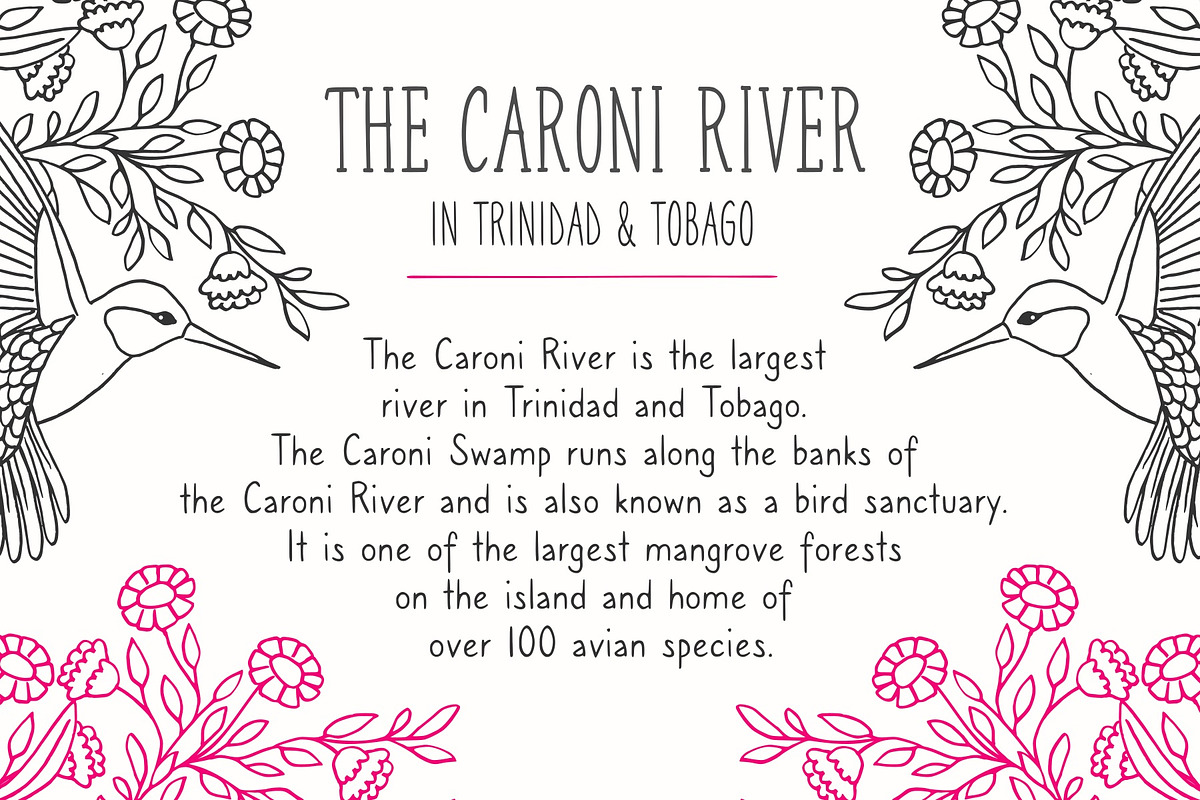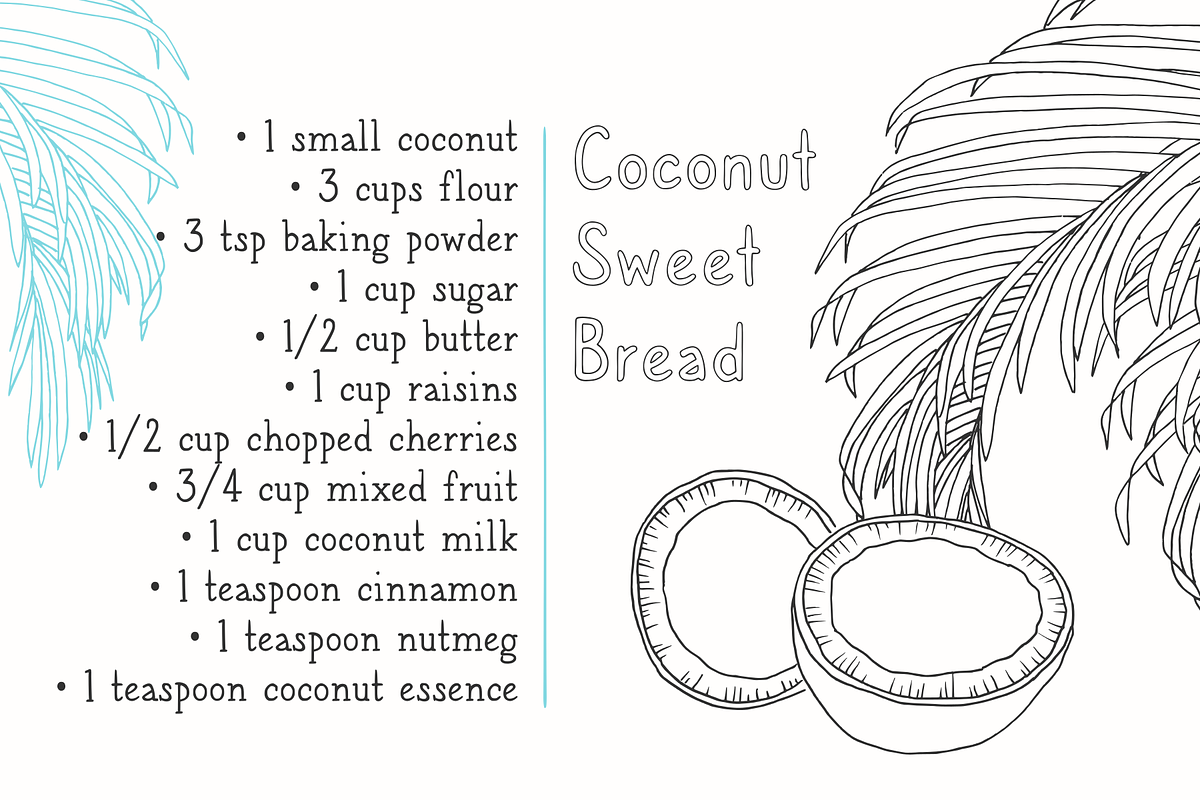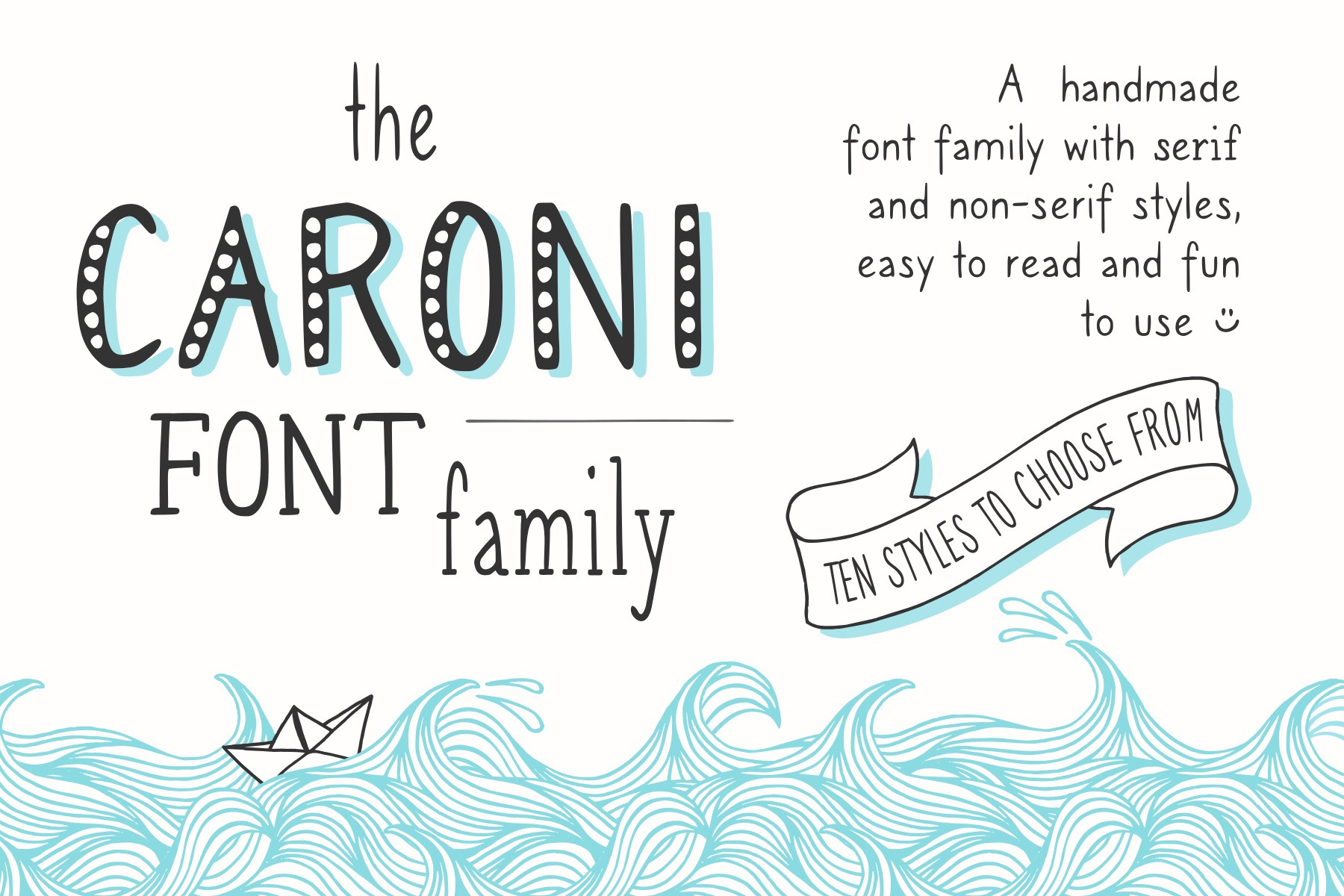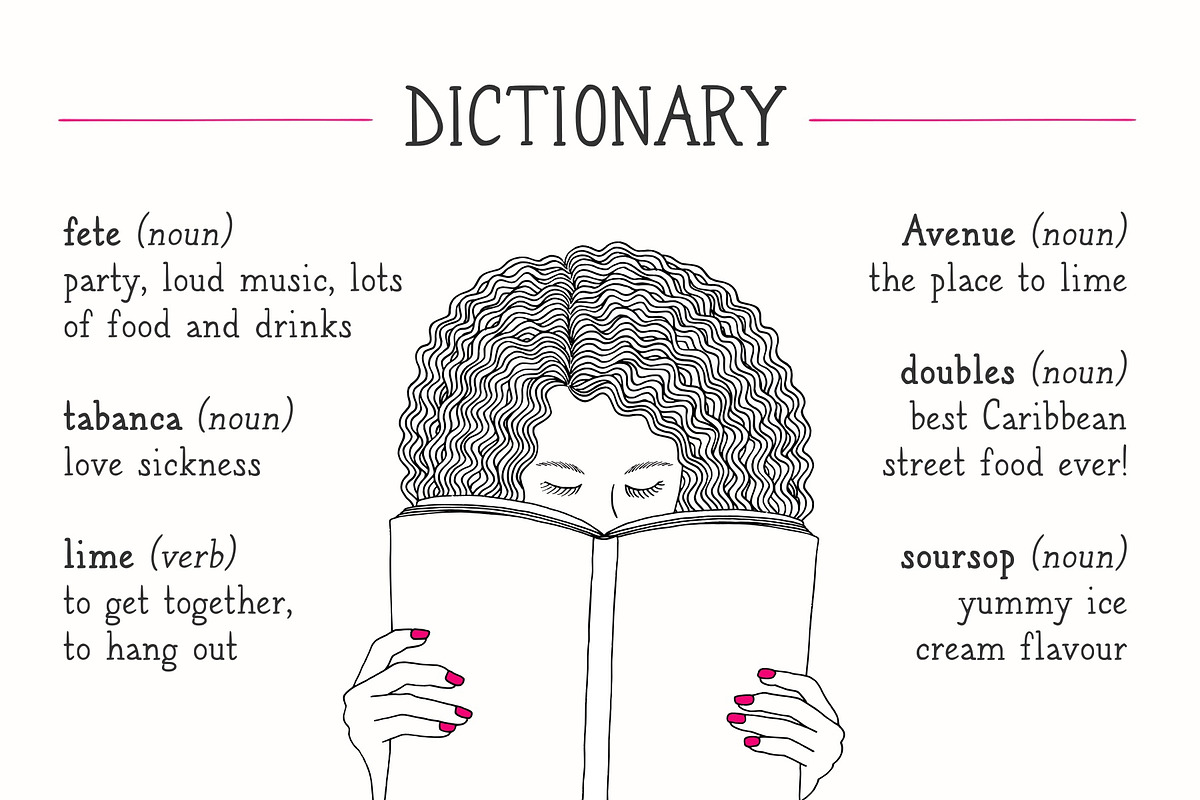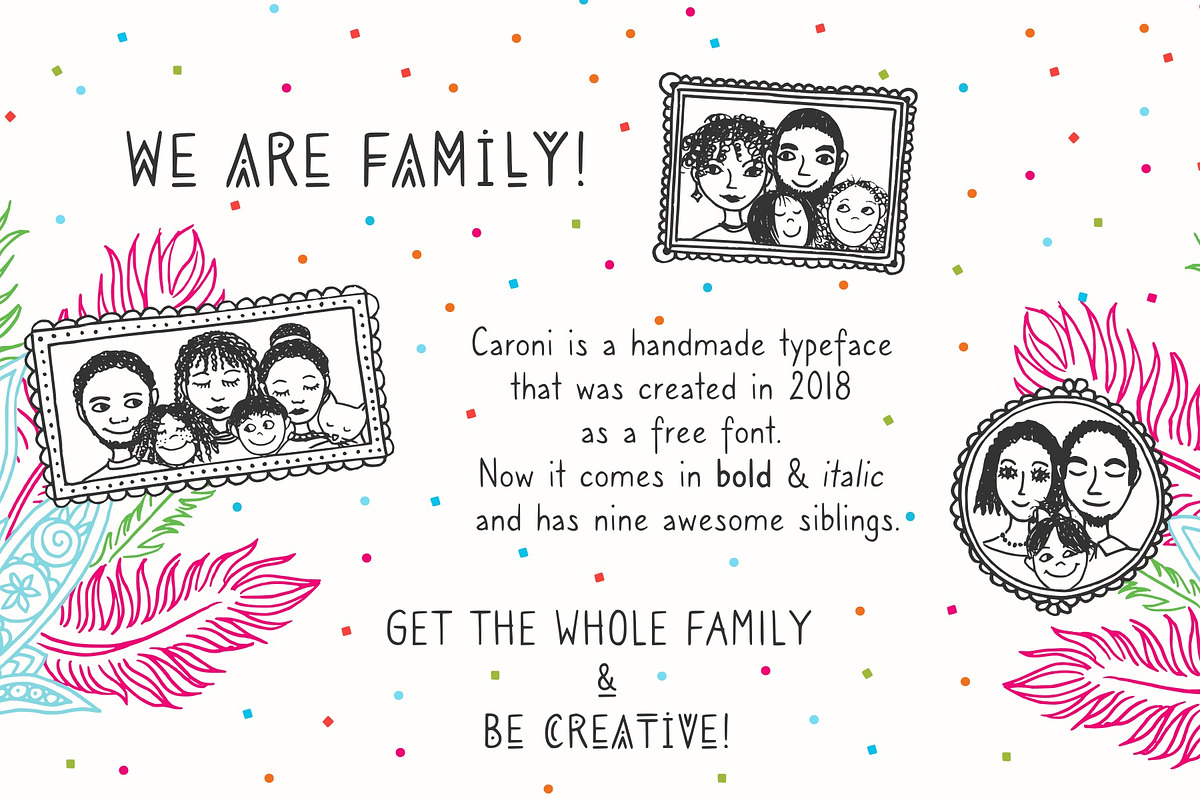
Caroni Font Family - Handmade Font
Caroni Regular is a cute handmade typeface, which was originally created in 2018 as a free font. You can download it on my website, it's free for both personal and commercial use: https://franzidraws.com/freebie.html
Caroni has a simple and clean look, and works great for longer texts. Caroni has already been used in numerous children's books, so now it was time to add more styles.
The Caroni Family at a glance
If you like Caroni, you will love Caroni's family! Caroni now comes in bold and italic, and it has nine awesome siblings:
- Avenue (all dressed up with stylish serif strokes)
- Lime (the skinny version of Caroni)
- Avenue Lime (the skinny version of Caroni Avenue)
- Tabanca (dark and heavy, this is Caroni's brush version)
- Doubles (enhanced with fine lines)
- Fete (with fun little dots)
- Coconut (Caroni's outline style)
- Soursop (Outline with dots, a great display font)
- Carnival (a quirky and fun all-caps version)
Caroni was created while staying with a friend in Trinidad, hence the names :)